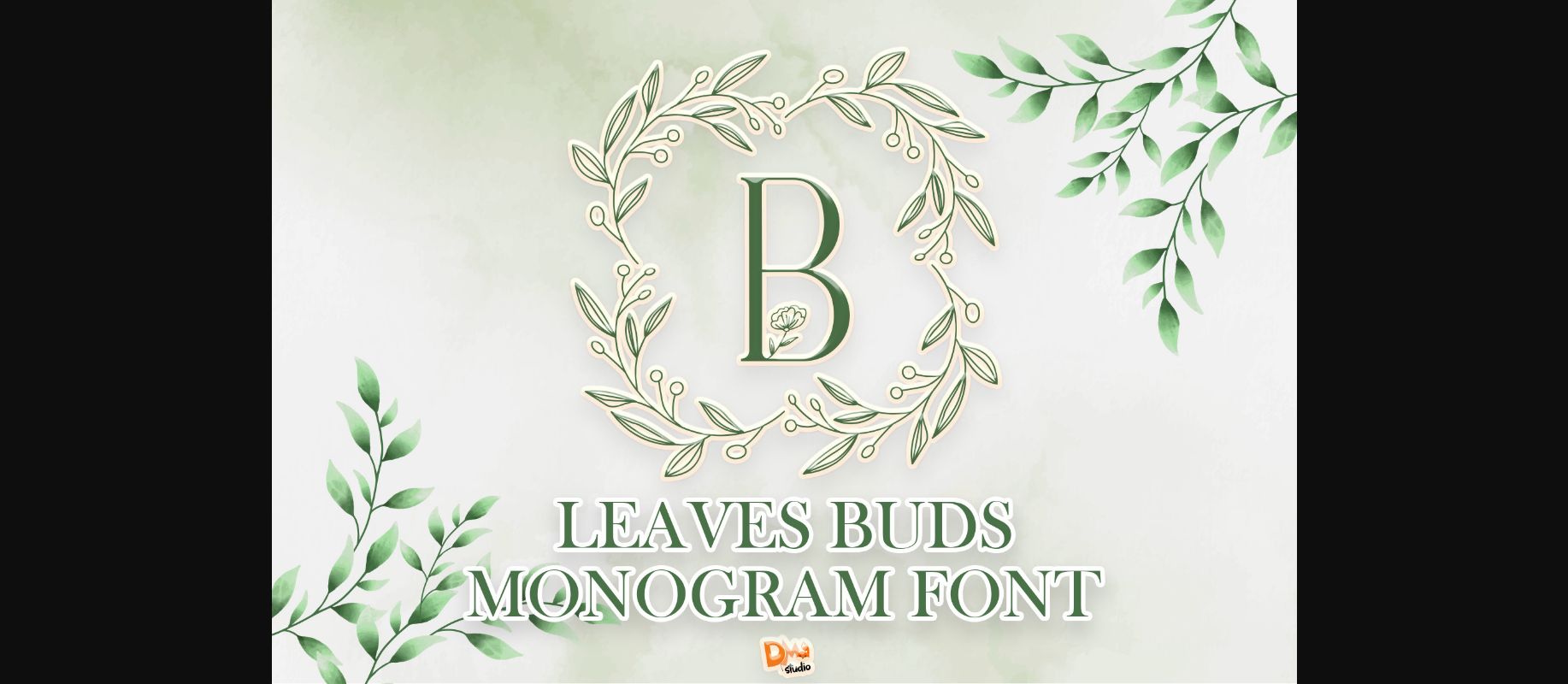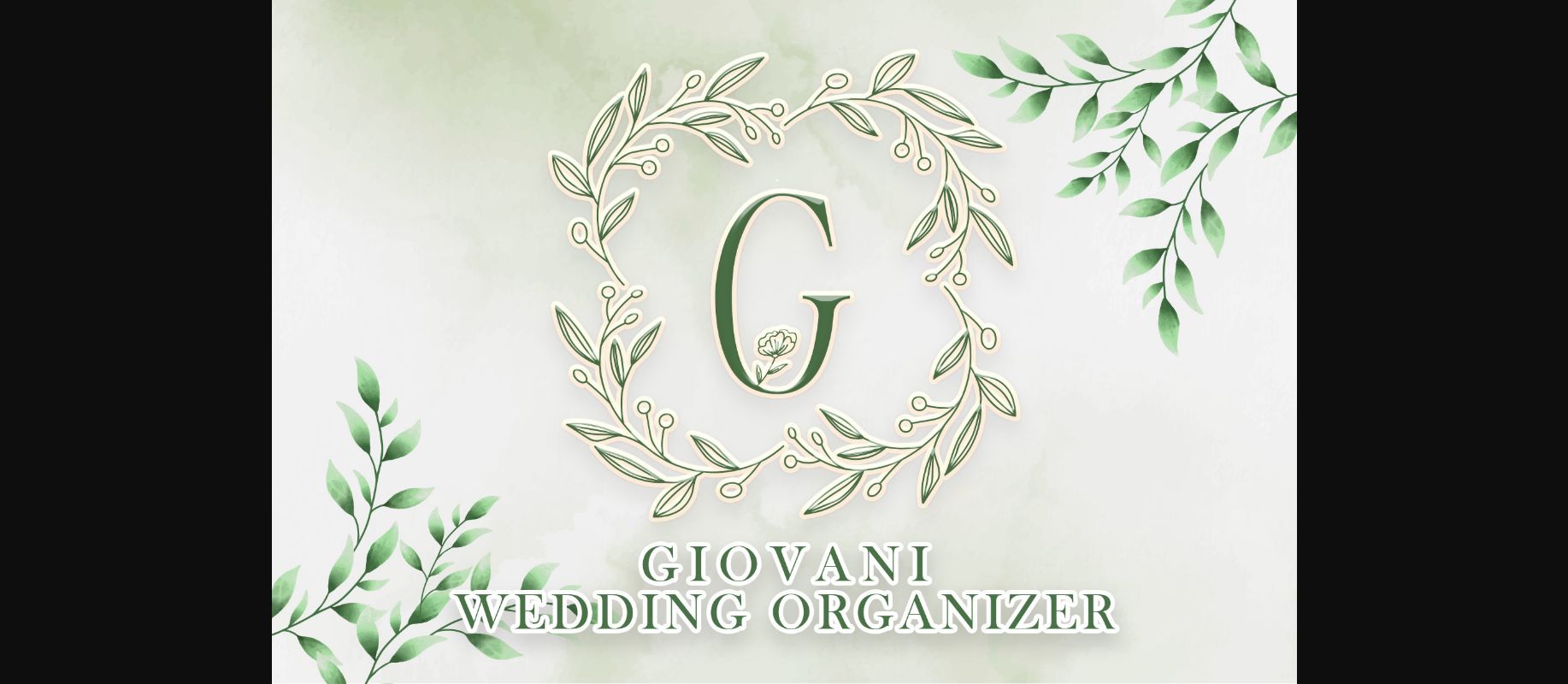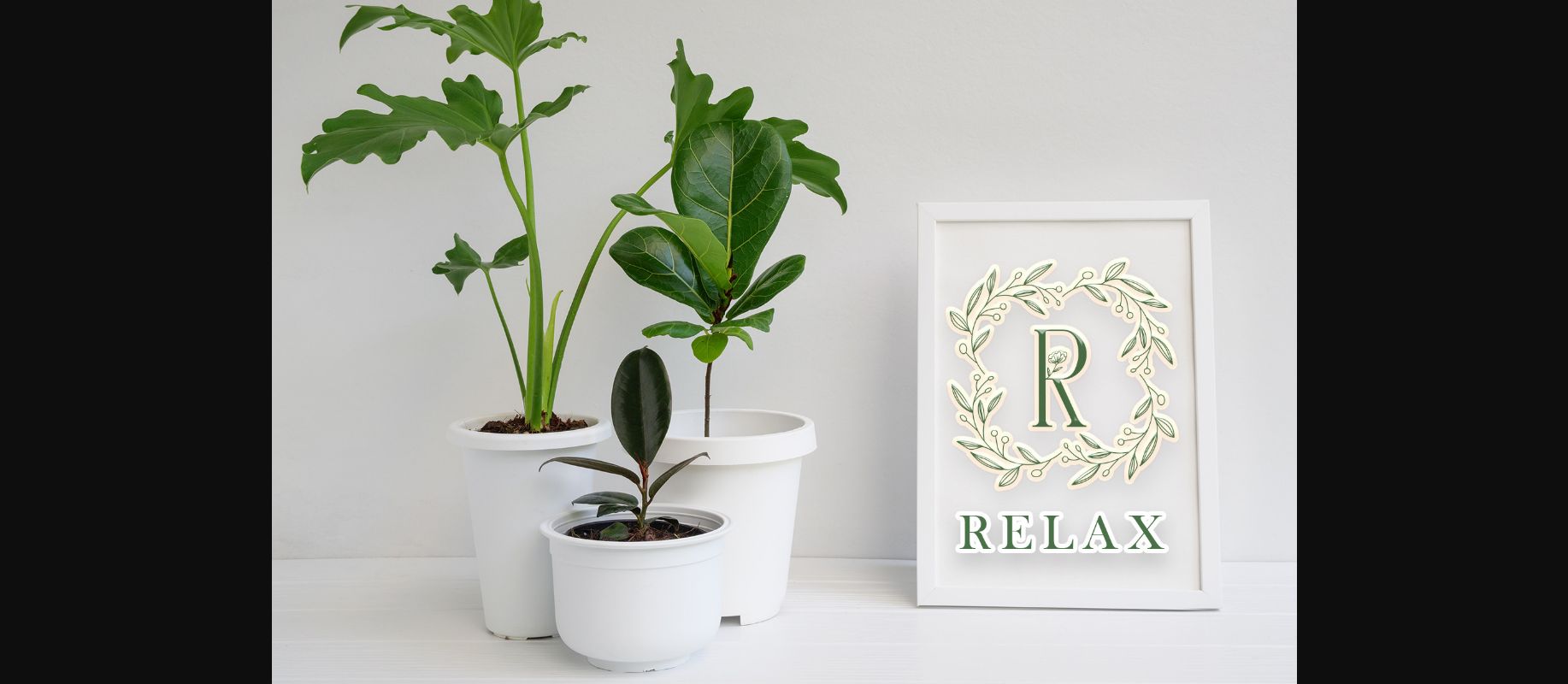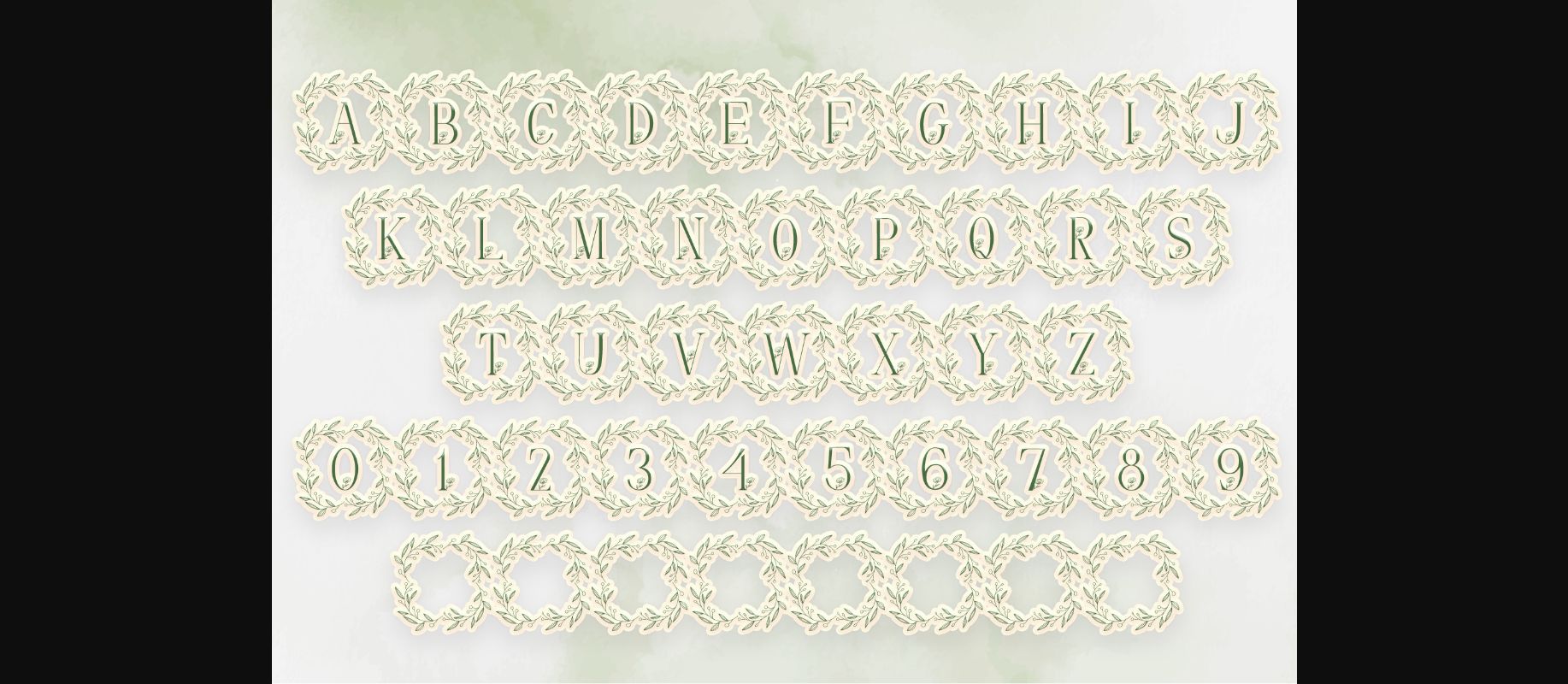
Leave Buds Monogram Font
About Leave Buds Monogram Font
Leave Buds Monogram is a dainty and beautiful decorative font. Add this romantic and lovely looking font to each of your love letters, wedding invitations or favorite design ideas, and you will be astounded by the outcome.